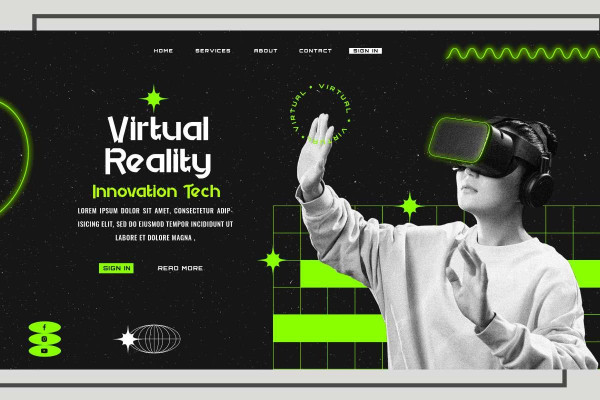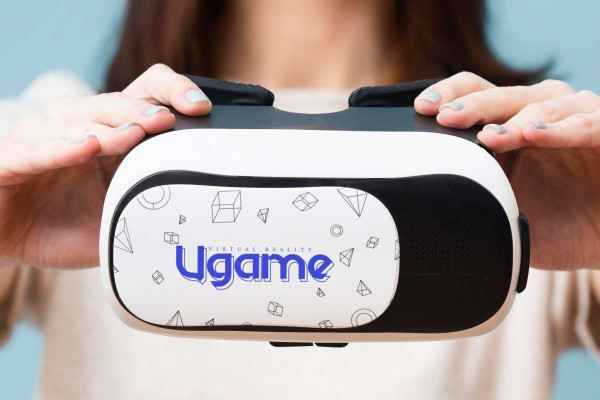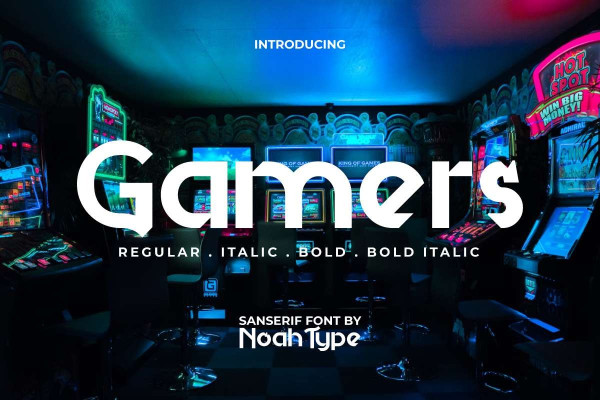
Gamers Font
Gamers Font is a gaming futuristic stylish sans serif display font, created by NoahType. This font has unique shaped lines that will make your designs more interesting! It would be perfect choice for many industries, such as accessories, advertisement, café, fashion, furniture, game, movie, handicrafts, printing, publishing, restaurant, sport, and more!
Gamers Font include full set of Uppercase and Lowercase Basic Characters, Numerals and Punctuation. This font will give it a unique sports vibe that available in four styles: Regular, Italic, Bold, and Bold Italic. Also can be used in any design, such as business card, catalog, label, magazine poster, product packaging, screen printing, signage, stationery, sticker, title, website, etc.